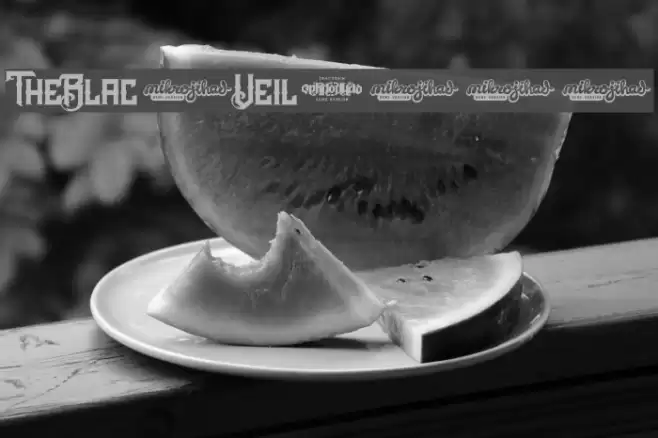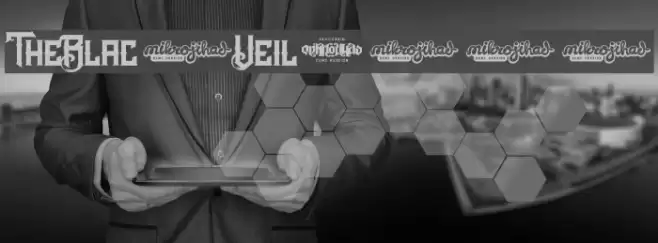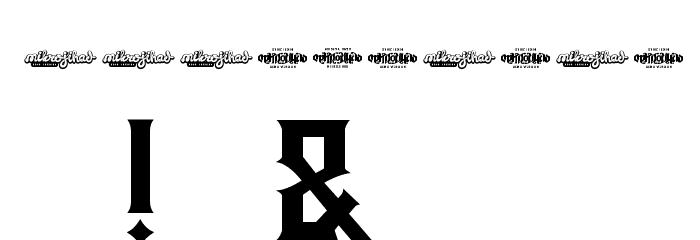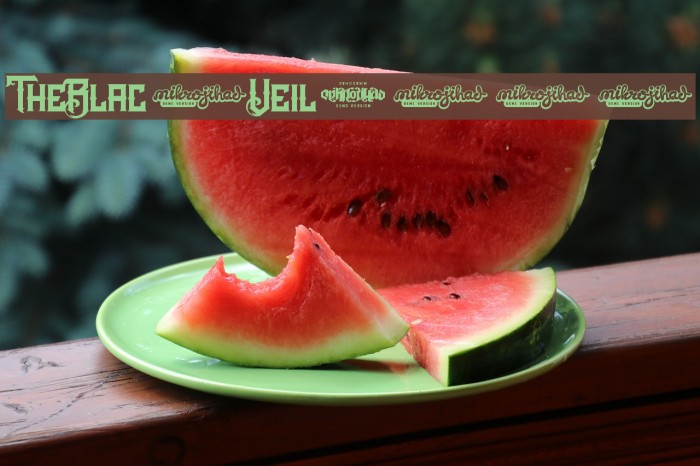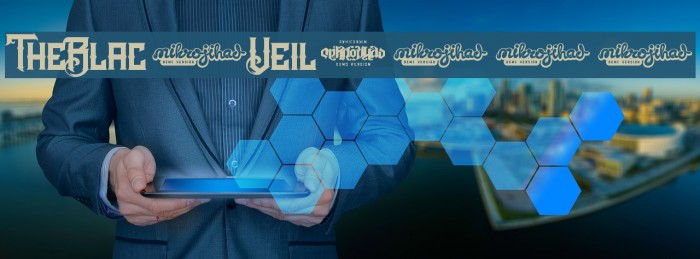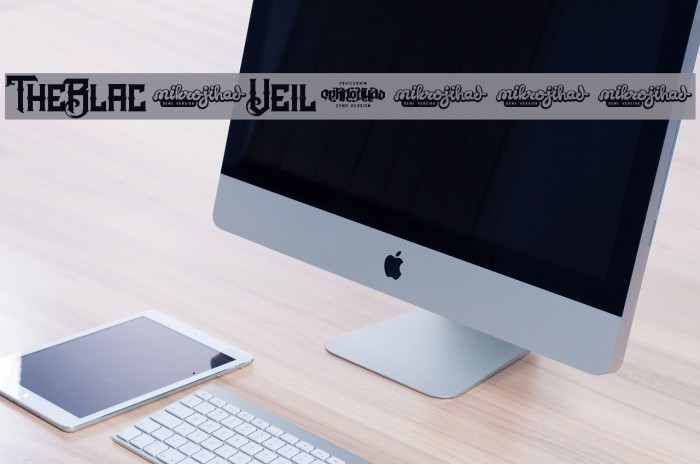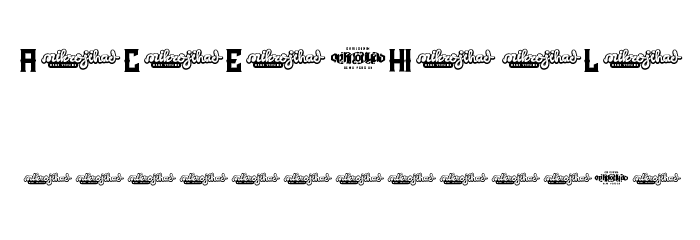
TheBlackVeilDEMO Font
TheBlackVeilDEMO Description
This font features a bold and dramatic style with a gothic influence, characterized by sharp edges and intricate details. The uppercase letters are particularly striking, with unique embellishments that give them a distinct personality. The lowercase letters maintain the same boldness but with slightly less ornamentation, ensuring readability. The numbers are consistent with the overall style, offering a cohesive look. Special characters are designed with the same attention to detail, making them stand out. This font is perfect for projects that require a strong visual impact.
A bold, gothic-inspired font with intricate details and sharp edges from Uncategorized fonts.
- Proposed Projects: Ideal for posters, album covers, branding, and any project needing a dramatic and bold typeface.
- Overall Style: Gothic, Dramatic